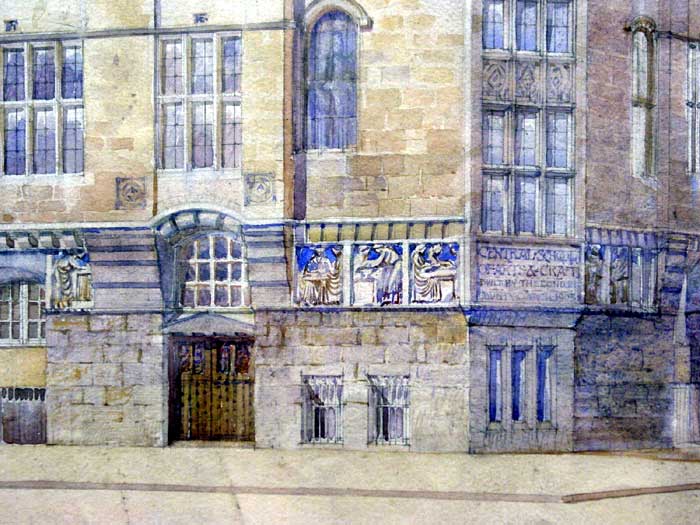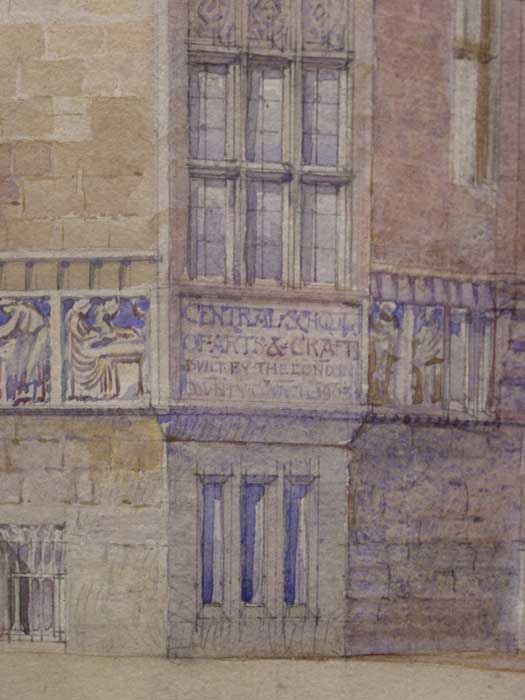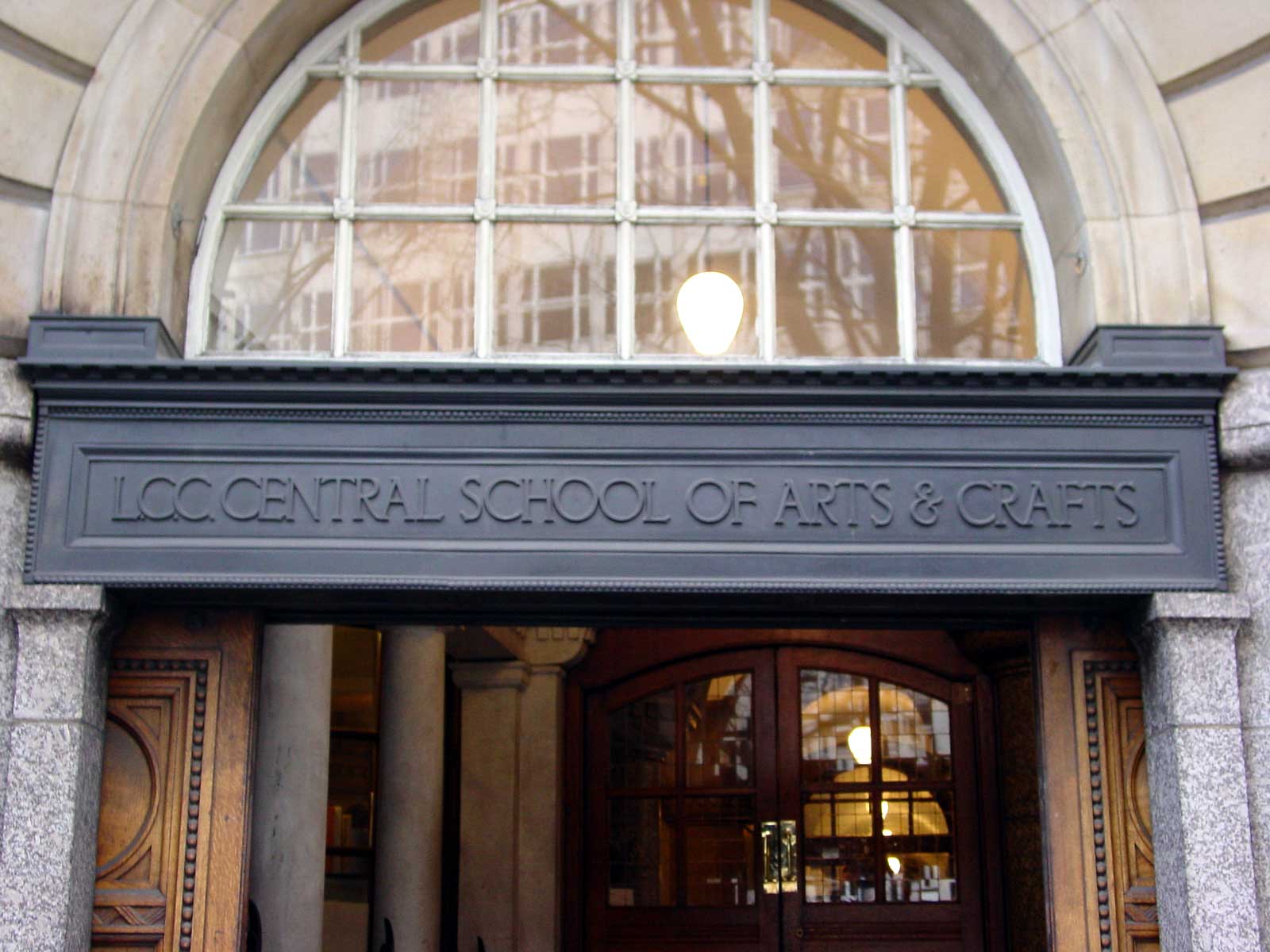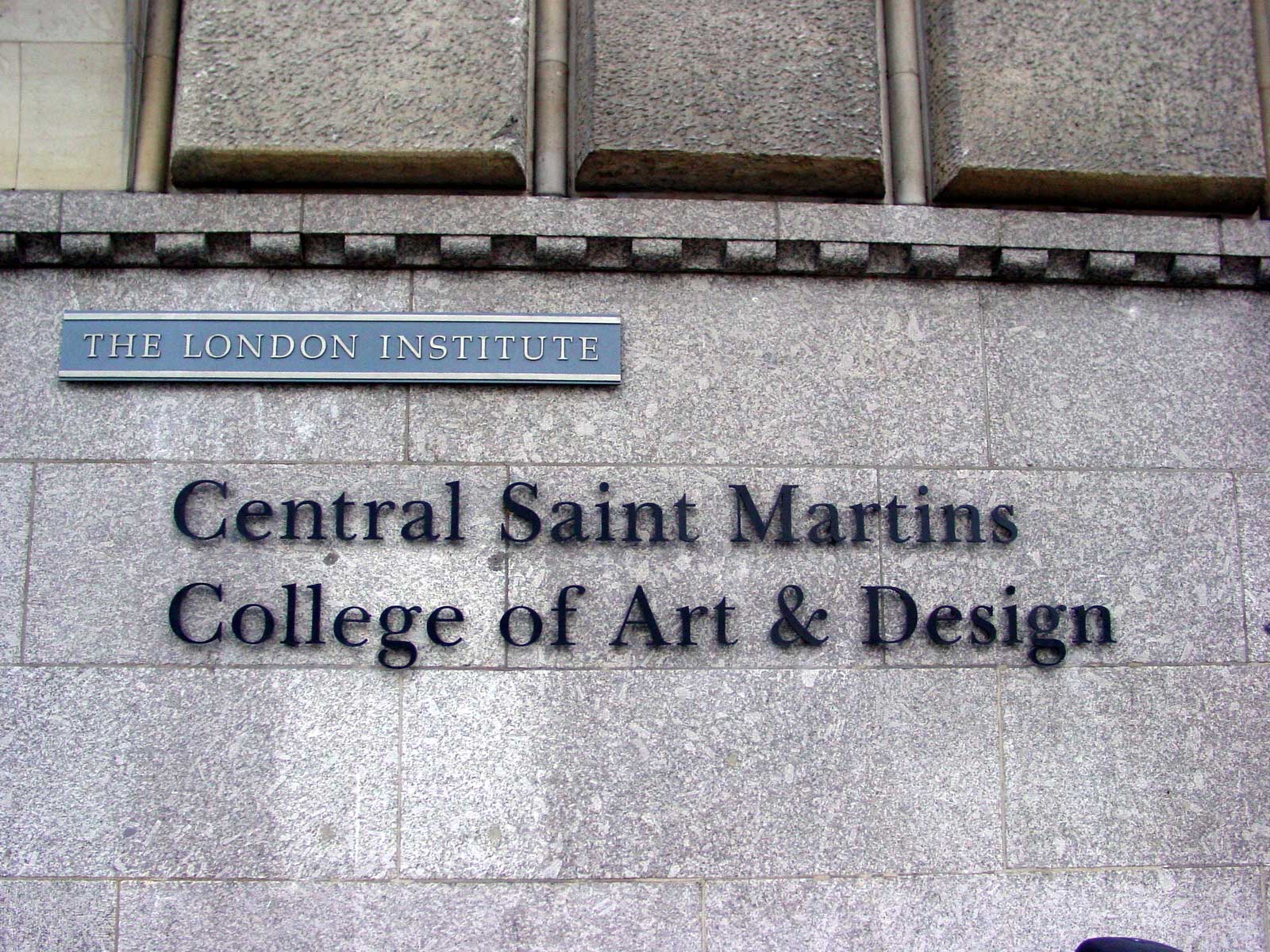
Central Saint Martins College of Art & Design Southampton Row / Theobald’s Road
As first planned the Central School of Arts & Crafts [note by W E Riley with A Halcrow Verstage of the LCC Architects’ Department for W R Lethaby, the school’s founding Principal in 1907–9] would have had carved lettering on the corner but all that was executed was the original name above the outer entrance doors.
A name change to Art & Design in 1966 was ignored, but in 1989 the college was merged with St Martin’s School of Art and became part of the London Institute. The name placed outside in the early 1990s is an example of how not to do it. As with most corporate identities, this one decrees that all buildings are signed in an identical way regardless of age, history or style.
Original college name above outer entrance doors on Theobalds Road.
Elevation to Orange Street (detail) by A Halcrow Verstage, 1903, showing a carved school name on the corner with Southampton Row as well as carvings on the square blocks between the ground floor window openings. Courtesy: Central Saint Martins Museum & Study Collection.
Current college name in cut-out steel raised off the stonework by steel pins. The lettering is a version of the typeface Baskerville, designed to print books in the mid eighteenth century.